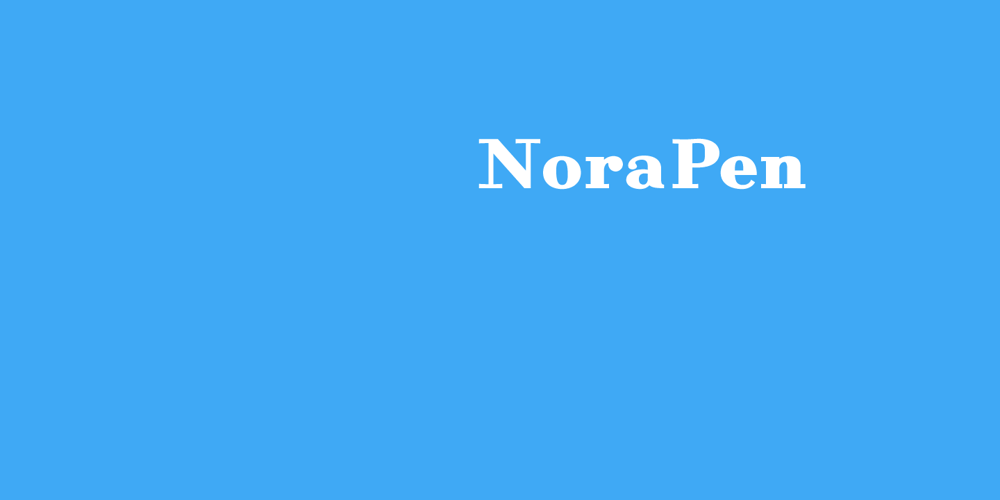
NoraPen Font Family was designed by Shuji Kikuchi and published by sugargliderz. NoraPen contains 7 styles and family package options. This font is influenced by Walbaum. However, I did not just trace the design, but sort of had the image in my head while I drew the letters. This font is balanced by not being entirely Walbaum, but still basically is. I’ve named it “NoraPen.” Nora comes from the name of the main character in Ibsen’s “A Doll’s House,” and Pen means a cage for livestock.